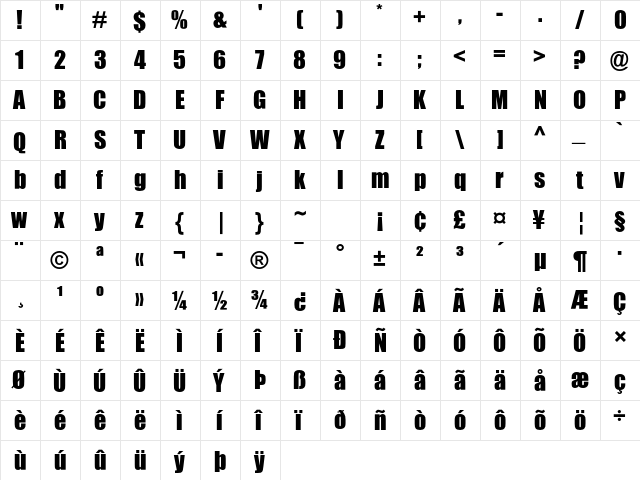
Impact MT Std Regular
Design Context for Impact MT Std Typeface
Impact MT Std brings high-energy athletic personality to the page — its confident, muscular forms are built for impact.
Built for sports team identities, athletic apparel, event posters, and high-energy promotional material.
Font Pairing: Use alongside a condensed or geometric sans for supporting copy — keep the pairing bold, functional, and free of ornament.
Pro Tip: Impact MT Std thrives on contrast — try it large, bold, and tight against a clean background for maximum visual impact.